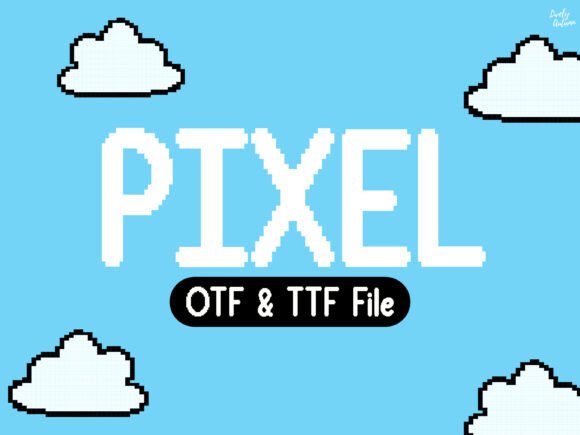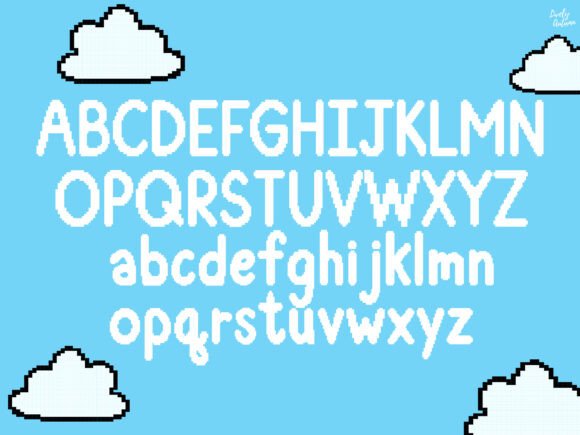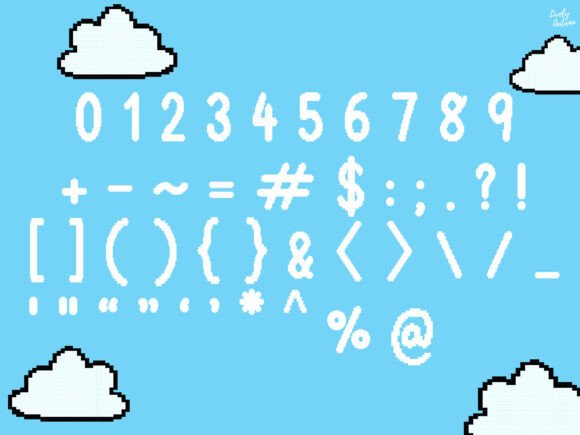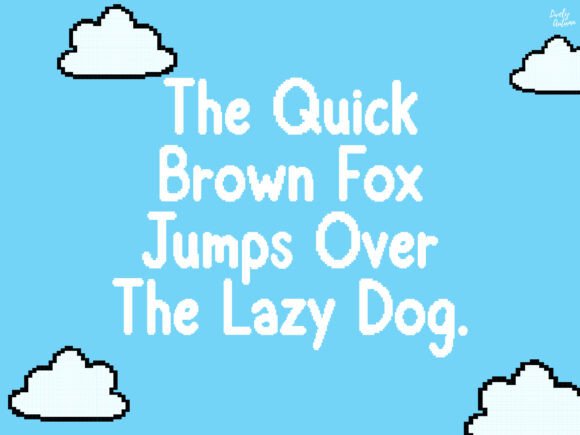
Pixel Font
About the Pixel Font
Add a touch of class to your work with the Pixel Font, a truly exceptional typeface. Pixel is a bold pixel art font. Perfect for your video game projects and various projects. From invitations to posters, social media graphics, journals, and much more.
Pixel Font’s bold, retro aesthetic makes it ideal for headlines, logos, and short, impactful text within posters and social media graphics. Its strong visual presence, however, makes it less suitable for body text or lengthy paragraphs, where readability suffers. Consider using it sparingly to create visual interest within a larger design.
This font’s energetic personality is perfect for brands targeting a younger demographic or those associated with gaming, technology, or pop culture. It pairs well with clean sans-serif fonts like Open Sans or Lato for balance, or a playful script like Pacifico to enhance its retro charm. Avoid pairing it with overly ornate or delicate fonts which would clash with its bold pixelated forms.
For maximum impact, use Pixel Font strategically—it shines when used as a focal point, not as a primary text style across large areas.